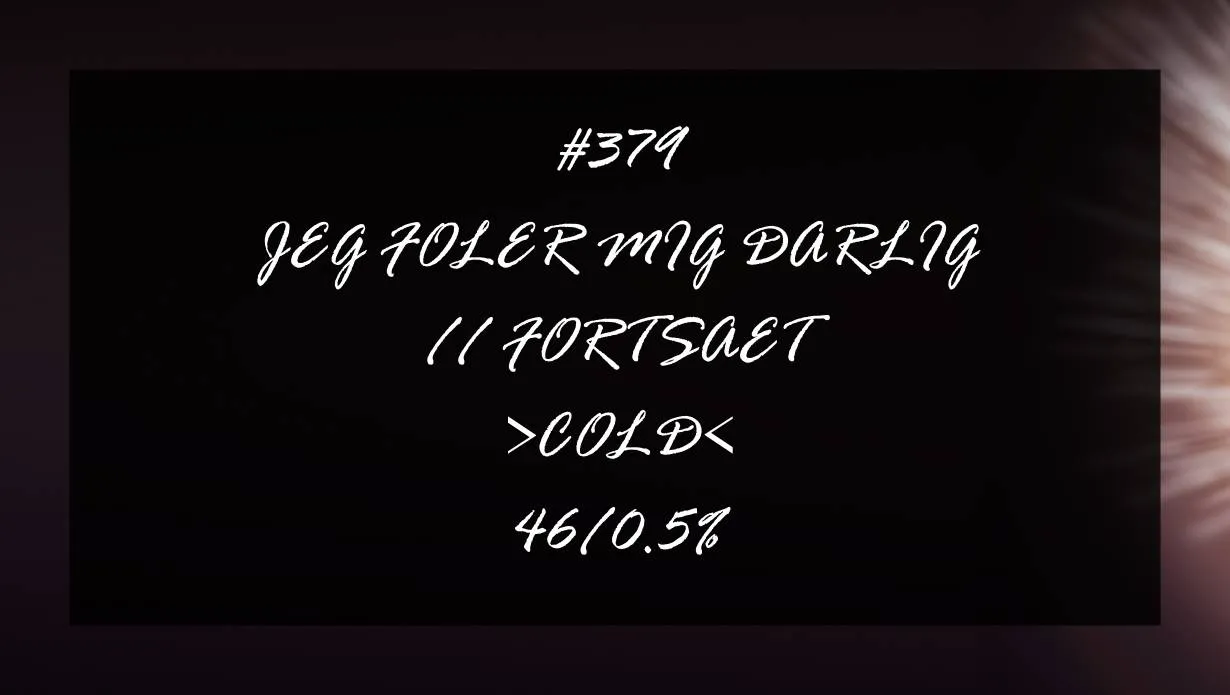
Rage font is a very aesthetic and stunning typeface that was designed by a very well-known font maker named Ron Zwingelberg. This striking Script font is known for its bold texture and amazing letterforms. While this font was originally created for display purposes.
It is not a google font but it is good for pairing functions and if you need a more stylish look to your modern designs then use this typeface with the combination of inside out font.
Rage Font Info
| Name | Rage Font |
| Designer | Ron Zwingelberg |
View of Rage Font